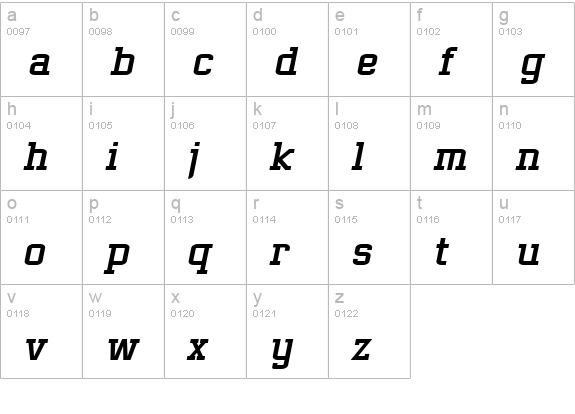
Gasoline Serif BTN Oblique Font Details
Gasoline Serif BTN Oblique is a distinctive, italic variant in the Gasoline typeface family \xE2\x80\x94 well suited to design and typography projects.
Gasoline Serif BTN Oblique is a versatile and stylish font that adds a touch of sophistication to any design project. Its sleek and modern aesthetic makes it perfect for a wide range of applications, from branding to editorial design. The slanted italic style of this font gives it a dynamic and energetic appearance, making it stand out from the ordinary. What sets Gasoline Serif BTN Oblique apart is that it is available for free! Yes, you read that right - this high-quality font can be downloaded for free at FontsMarket.com. Whether you're a designer looking to elevate your projects or a business owner seeking a fresh look for your branding, Gasoline Serif BTN Oblique is the perfect choice. Download it now and take your designs to the next level!